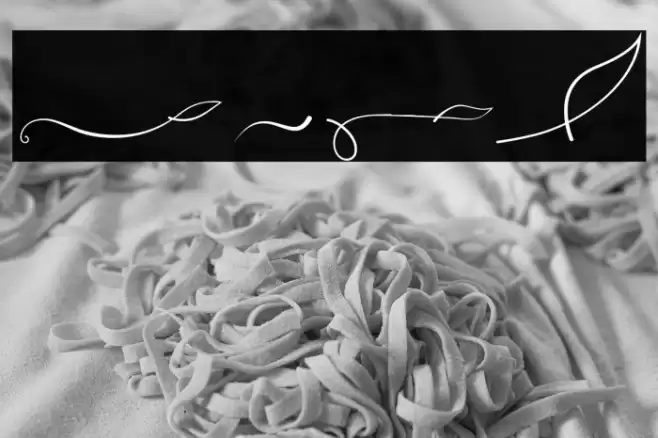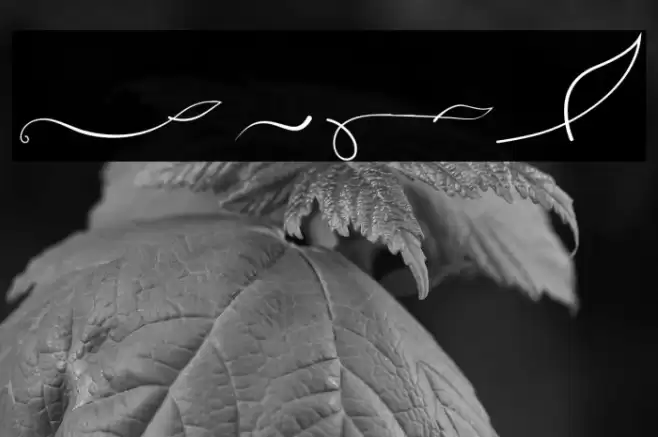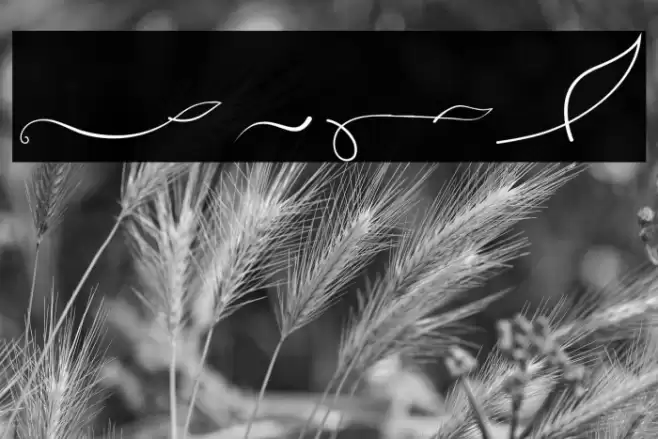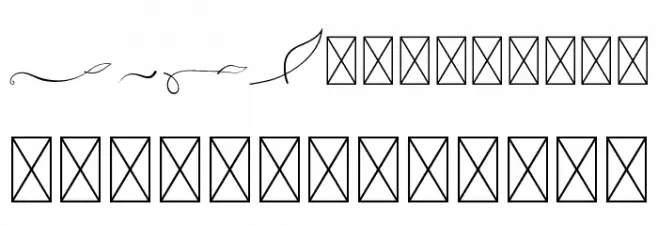
Ayuningtyas Swashes Font
Ayuningtyas Swashes Description
This font features elegant and flowing swashes that add a decorative touch to any design. The swashes are characterized by their smooth curves and delicate lines, making them ideal for adding a touch of sophistication and flair. These elements can be used to enhance the visual appeal of invitations, greeting cards, or any project that requires a refined and artistic look. The swashes are versatile and can be combined in various ways to create unique and personalized designs.
Elegant swashes with smooth curves for decorative use from Regular fonts.
- Proposed Projects: Ideal for wedding invitations, greeting cards, and artistic projects requiring decorative elements.
- Use Case: Logos, Invitations, Artistic Designs